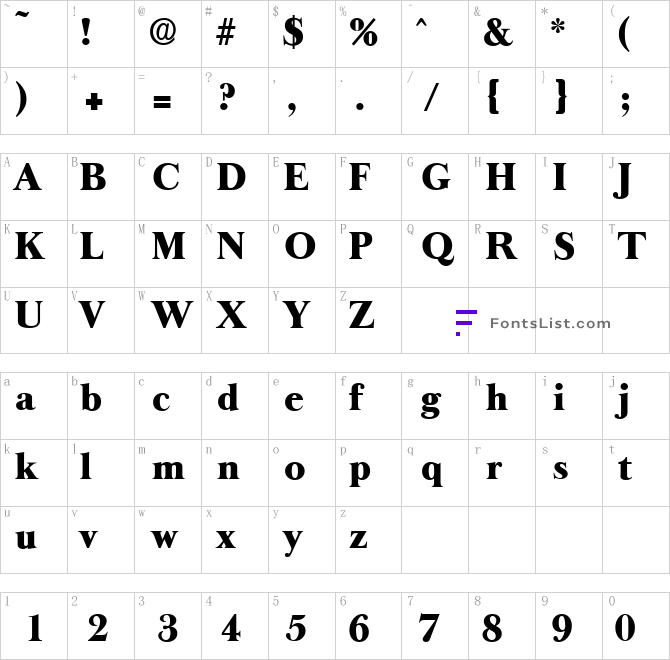
- Font Name:BaskerOldSerial-Heavy
- Subfamily:SoftMaker Software GmbH BaskerOldSerial-Heavy-Regular
- Full Name:BaskerOldSerial-Heavy-Regular
- PostScript:BaskerOldSerialHeavy
BaskerOldSerial-Heavy-Regular.ttf is a very beautiful artistic font, BaskerOldSerial-Heavy-Regular.ttf is widely used in the design and printing of various books and pictures,BaskerOldSerial-Heavy-Regular.ttf has a strong visual impact,BaskerOldSerial-Heavy-Regular.ttf is a commonly used font in newspapers, magazines and books, and is used in posters, e-commerce Poster design, store design, logo design, font design and other fields.BaskerOldSerial-Heavy-Regular.